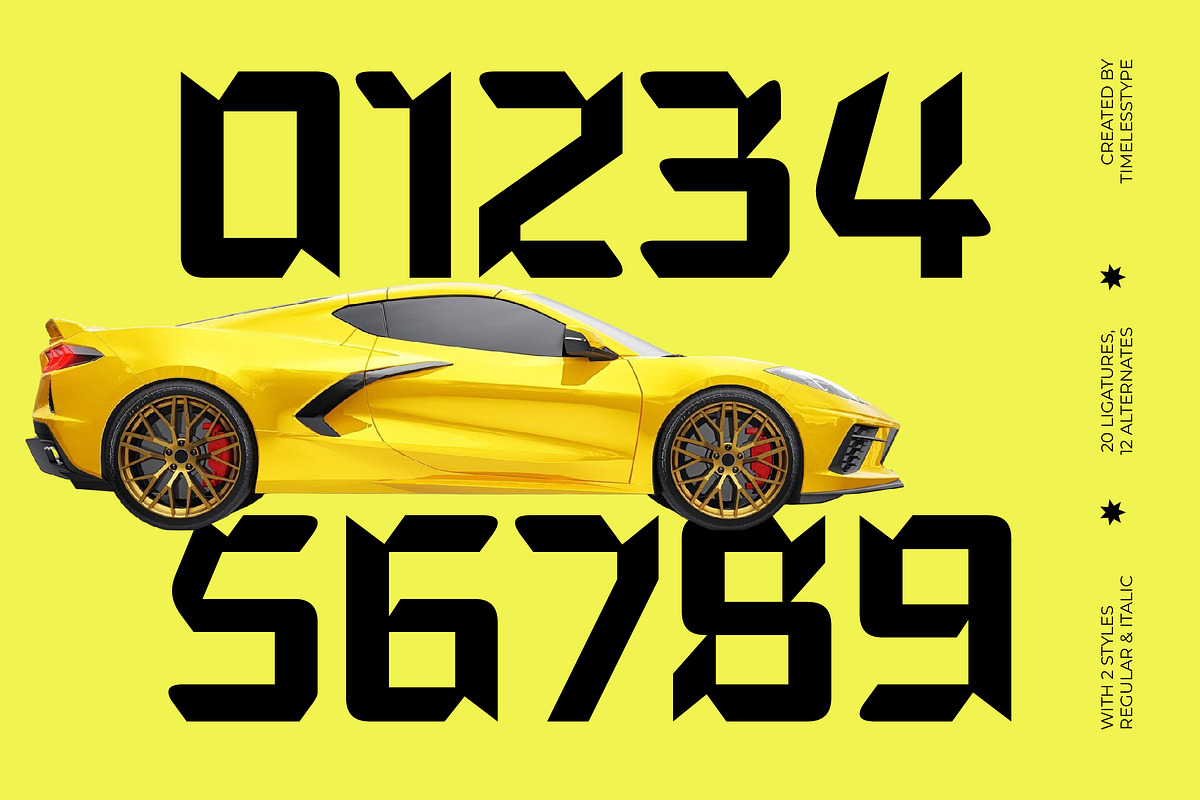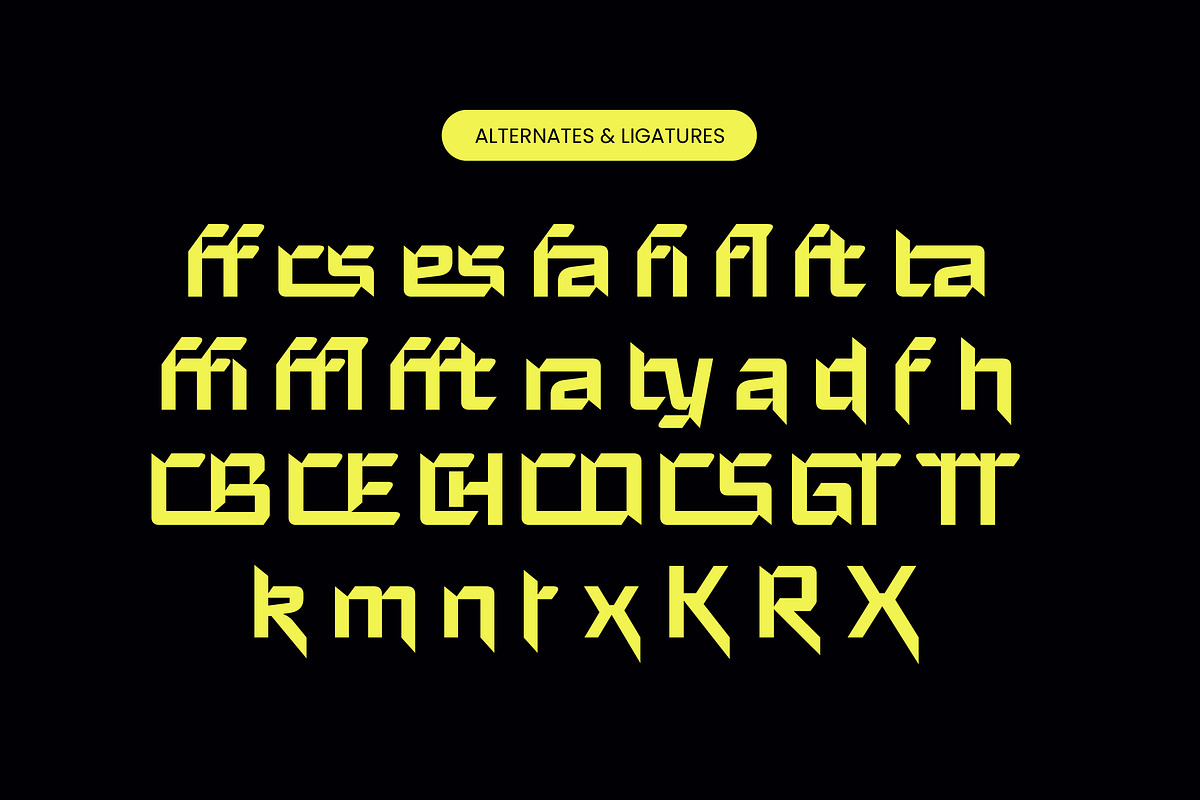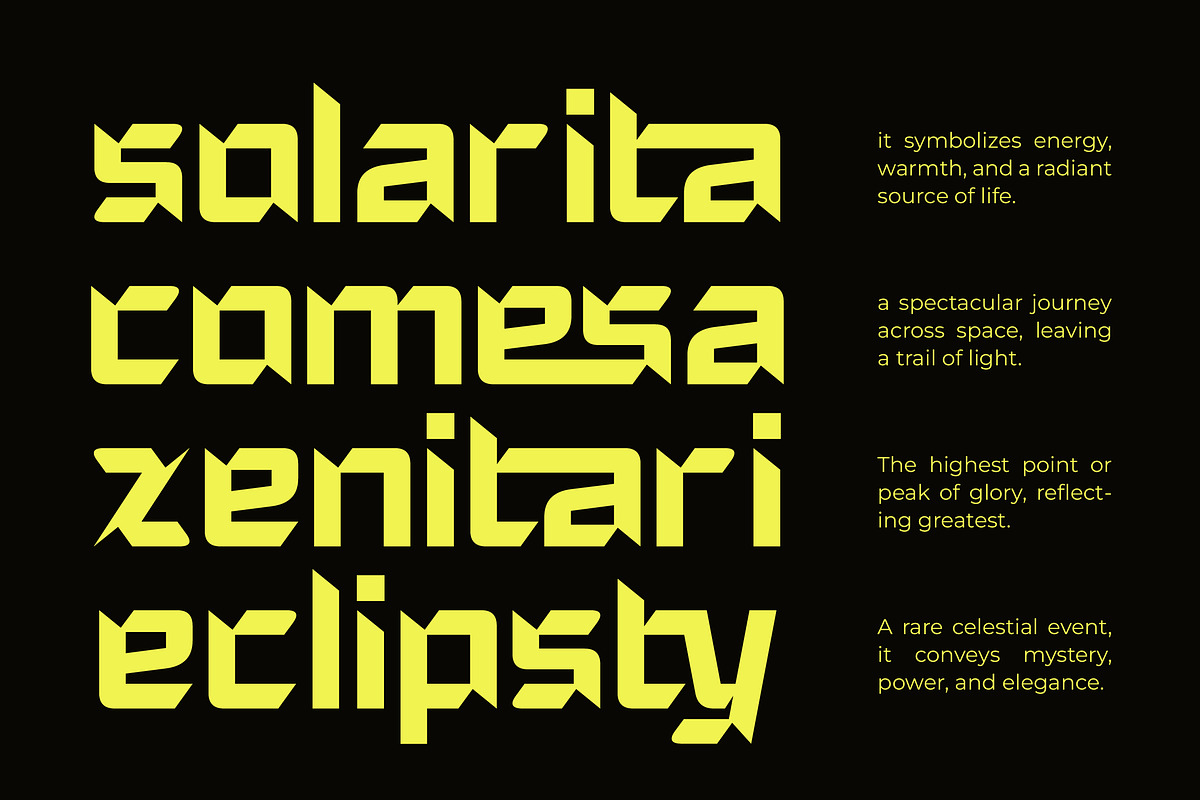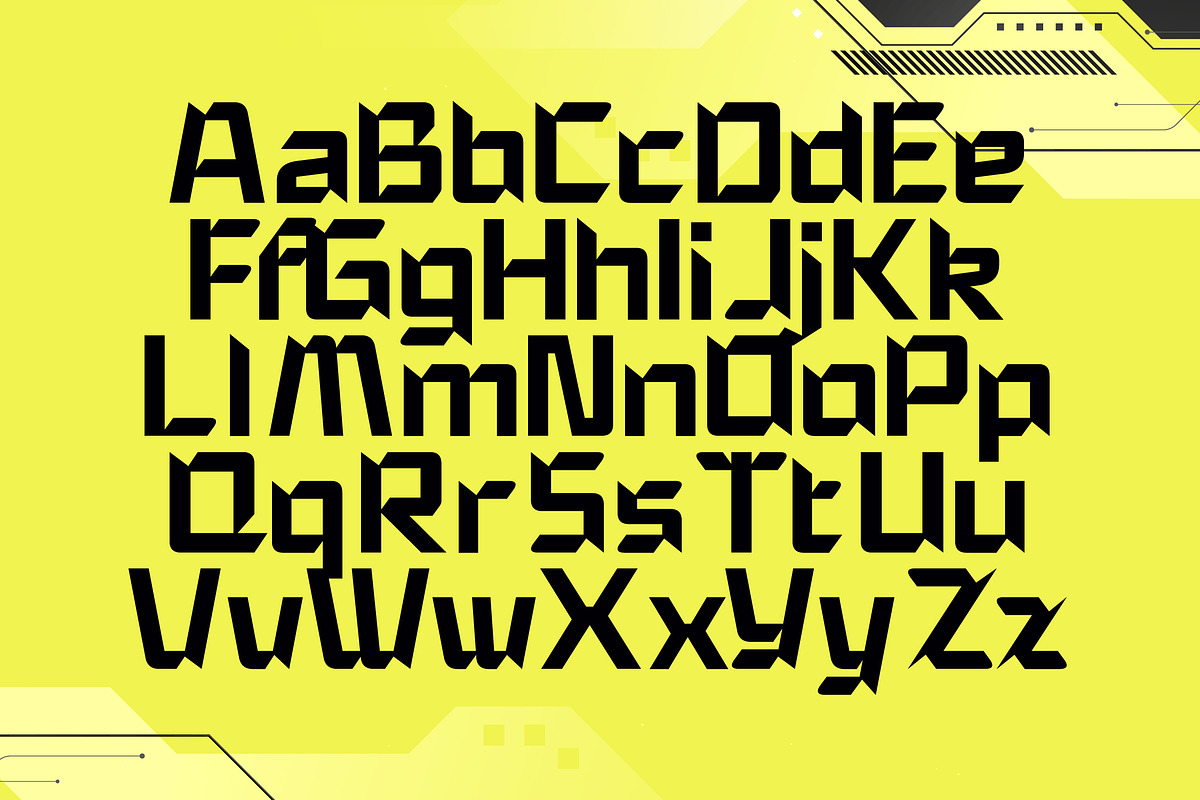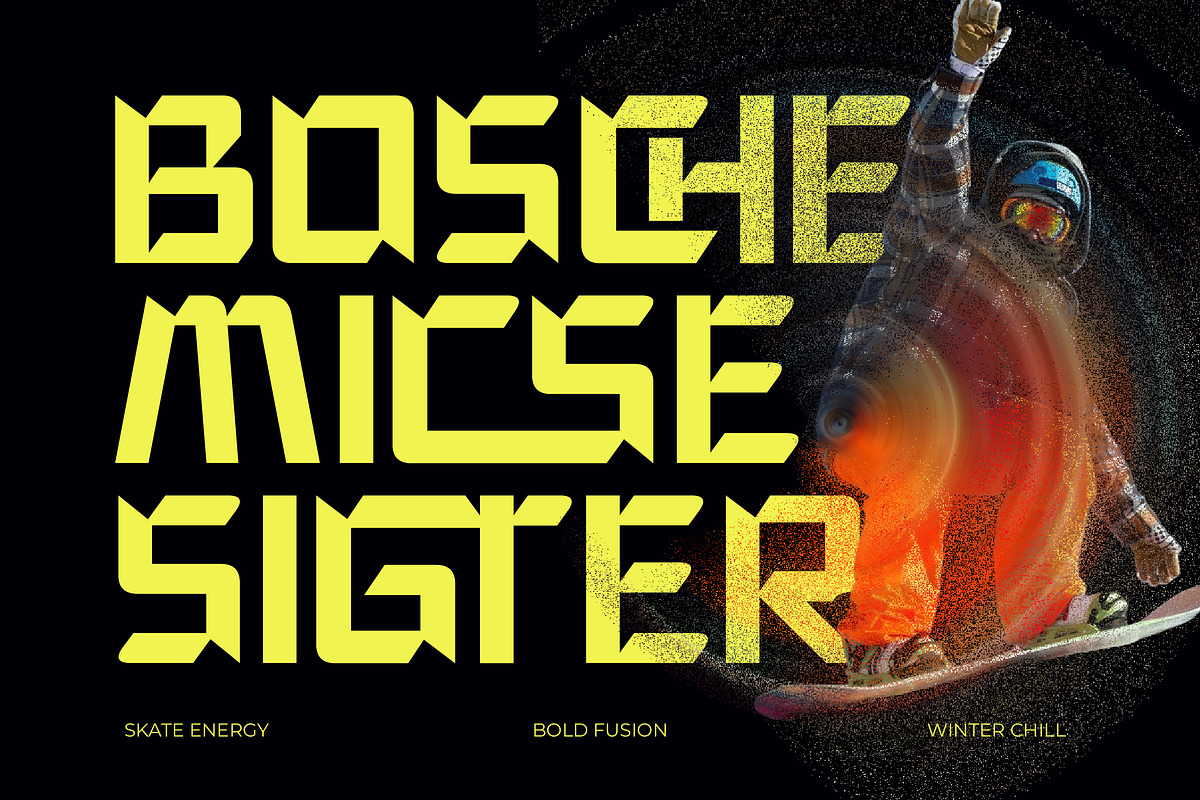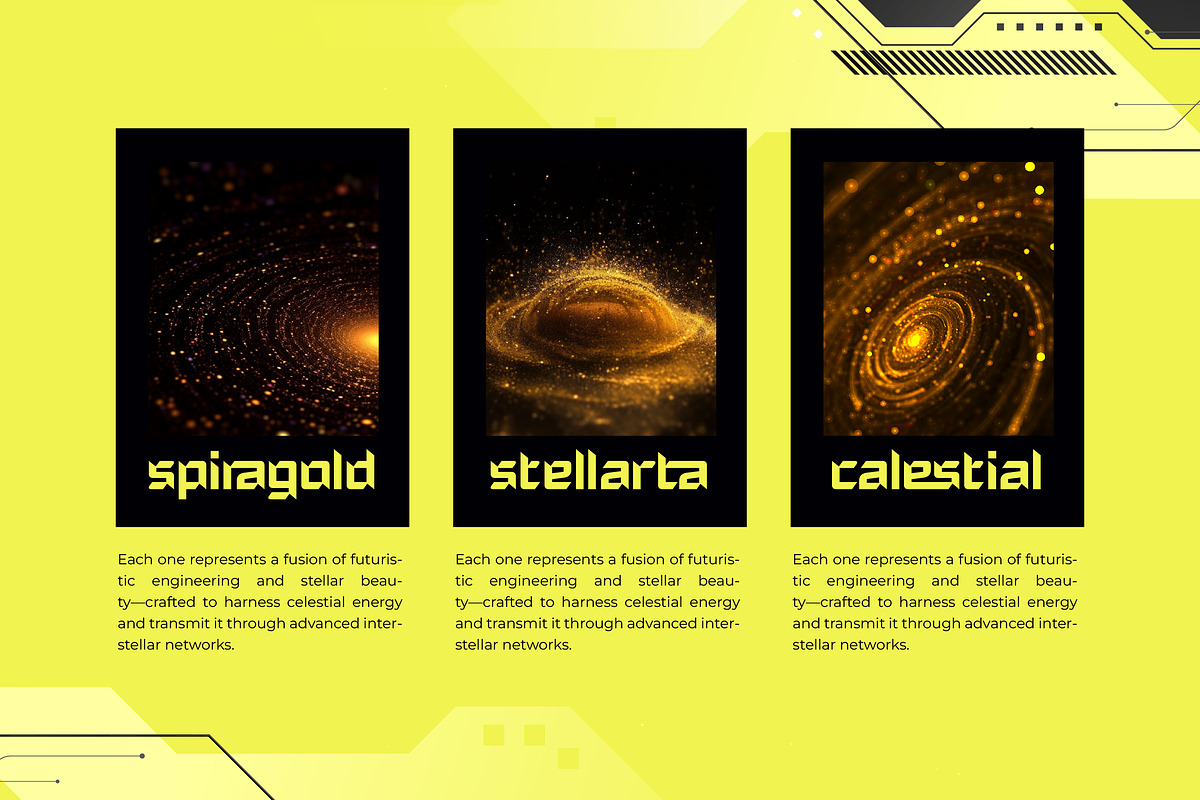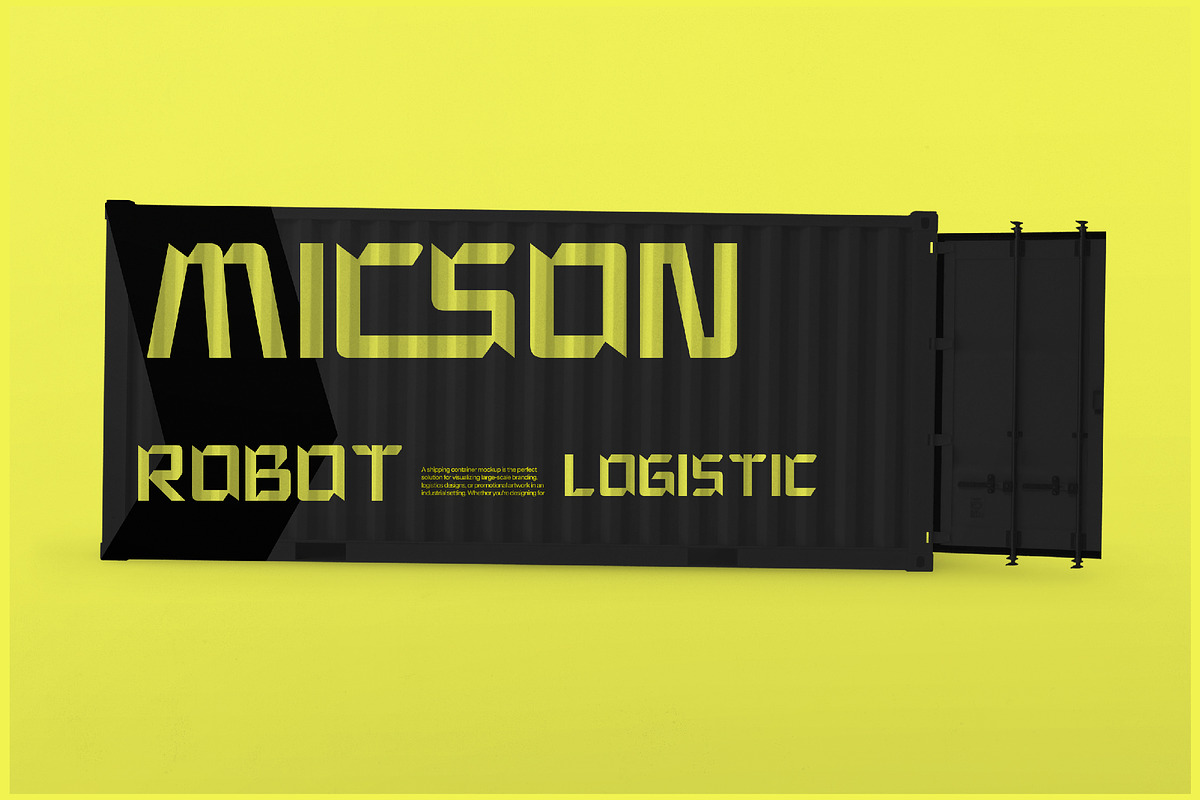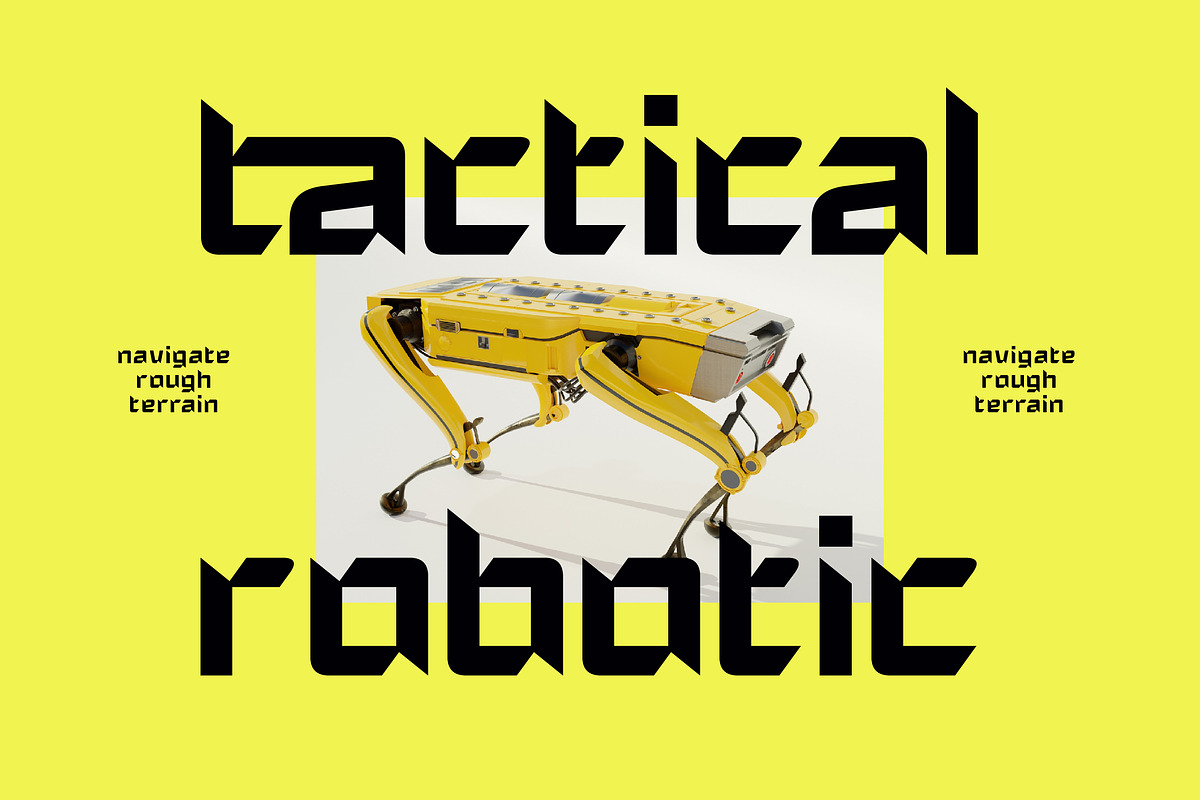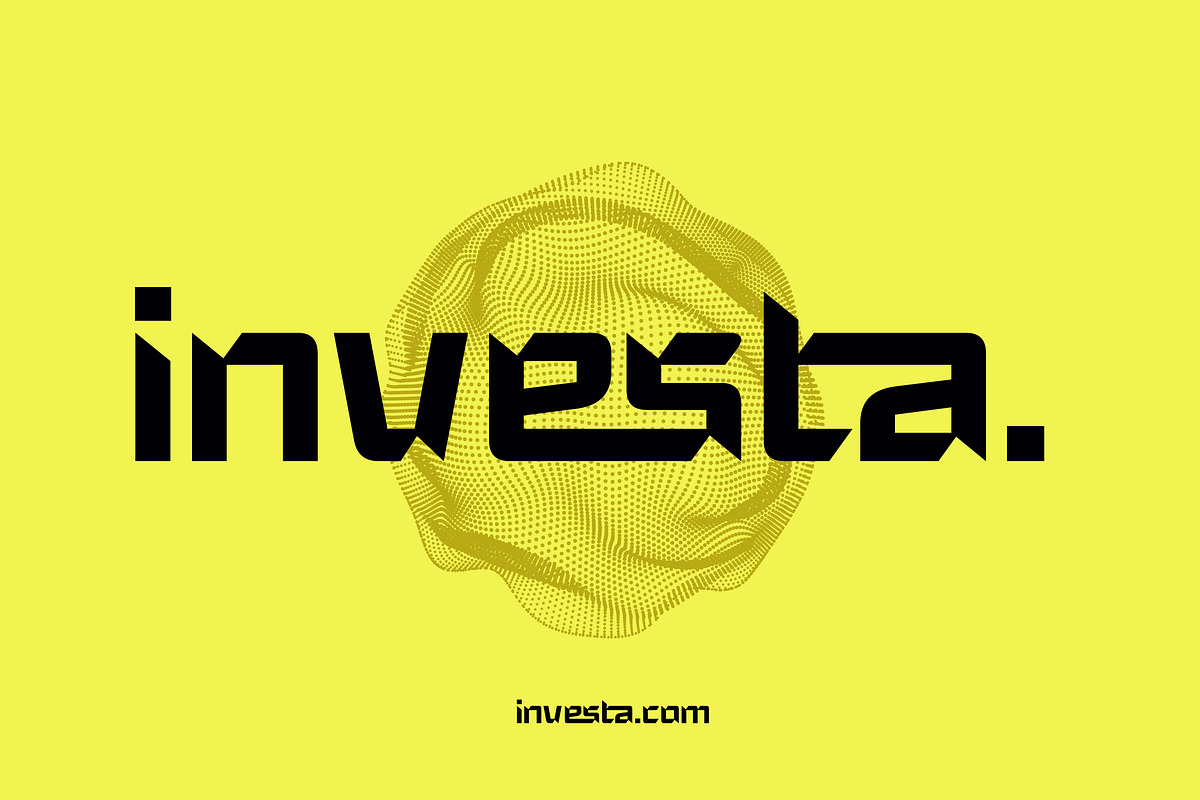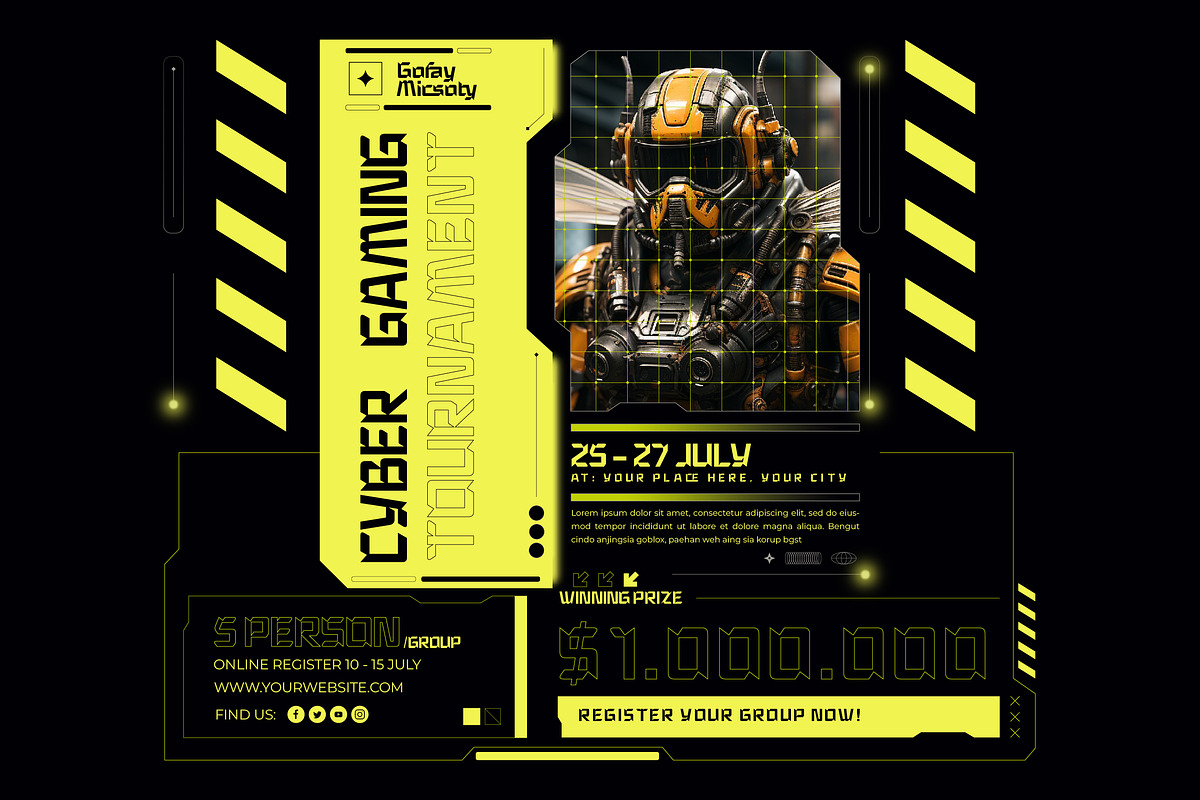
Gofay Micsoty Futuristic Sporty
Step into the next dimension of design with Gofay Micsoty, a high-performance typeface engineered for maximum visual velocity. This font is a pulse-pounding tribute to the fusion of human ambition and machine precision, perfect for brands that refuse to play it safe.
Drawing inspiration from the aerodynamic curves of supercar chassis and the neon-drenched aesthetics of futuristic robotics, every glyph tells a story of speed and innovation. Its sharp, dagger-like terminals and geometric construction evoke the atmosphere of a high-tech laboratory or an elite e-sports arena.
The heart of this modern serif display lies in its aggressive silhouettes and specialized letterforms that deliver an undeniable branding impact. It transcends the standard editorial font by offering a luxury typography experience that is both mechanical and sophisticated, functioning as a unique high-contrast serif for the digital age.
Aligned with the rising modern serif trend, this typeface stands at the cutting edge of contemporary editorial display fonts. It is a masterclass in character-driven typography, designed specifically for creators who want to define the visual language of the future rather than simply following it.
This versatile powerhouse is the ultimate choice for high-impact logo design and dynamic branding projects across the athletic and technology sectors. Whether applied to futuristic packaging, digital editorial layouts, avant-garde wedding invitations, or high-street fashion labels, it commands total attention.
To ensure complete creative freedom, the package includes an extensive set of ligatures and creative alternates for a truly custom feel. The font is also equipped with decorative swashes and full multilingual support for international characters, making it a robust global solution for professional designers.